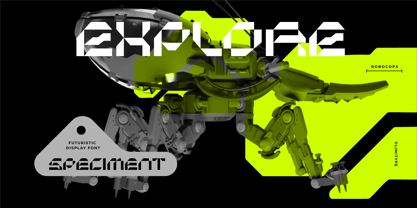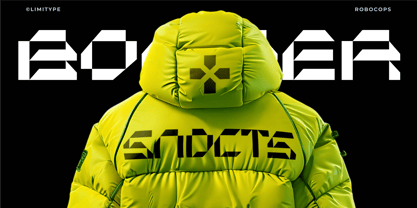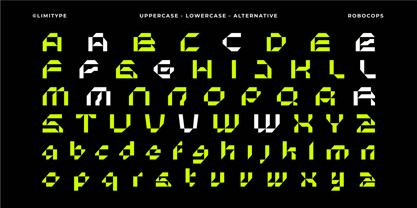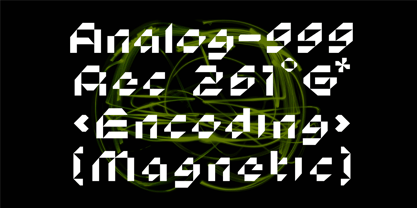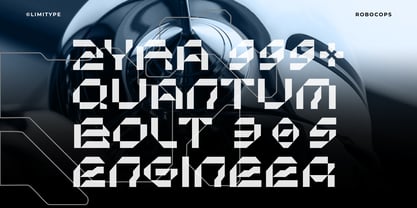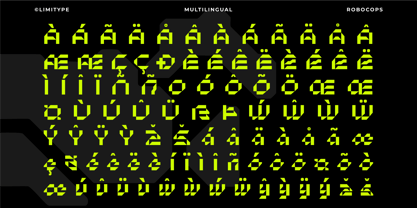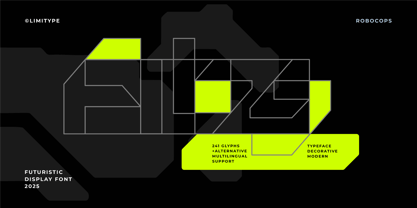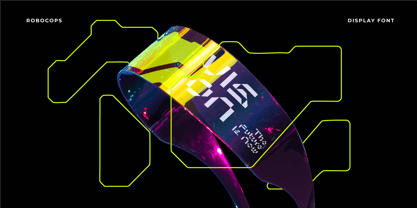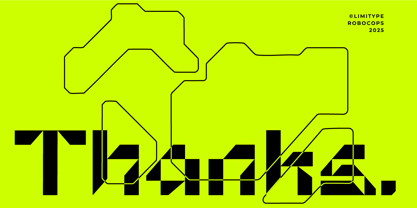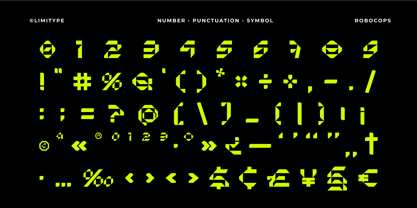
Robocops
by limitype
The Robocops Font Family was designed by Muhammad Muammar, Furqan Sudirman and published by limitype. Robocops contains 1 styles. More about this family
Robocops is a bold display font with a futuristic style, featuring geometric shapes and distinct sharp angles. It is designed to convey a strong, modern, and iconic impression. Ideal for sci-fi, technology, gaming, and cyberpunk themes that aim to stand out with bold character and visual impact.